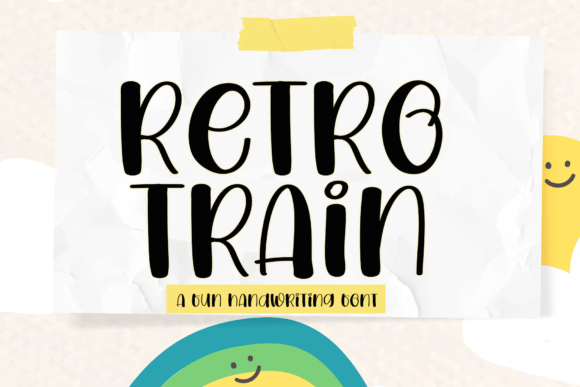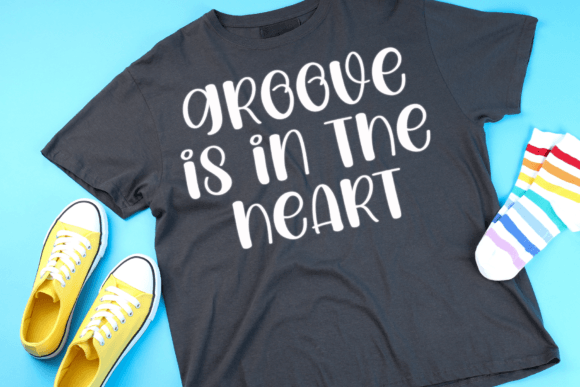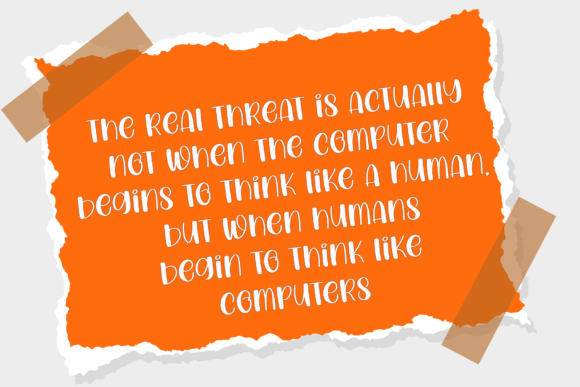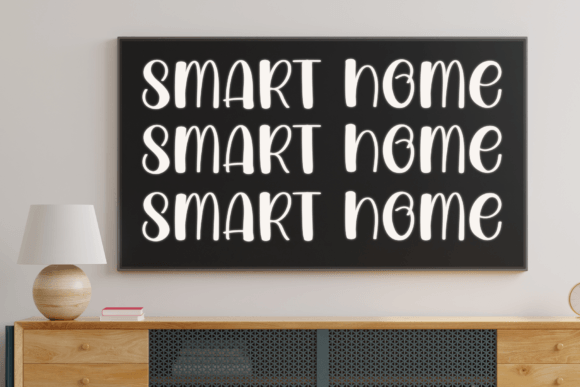
Retro Train Font
About the Retro Train Font
Experience the unique personality of Retro Train Font, a font designed for impact. Retro Train is a stylish handwritten display font with a contemporary atmosphere and impeccable form, inspired by timeless classic calligraphy. Balanced and varied, this font was designed to enhance the beauty of your projects.
Retro Train excels in headline applications, logos, and short text blocks on posters or packaging where its stylish, handcrafted quality adds a touch of vintage charm. It’s ideal for projects needing a retro yet modern feel, such as branding for coffee shops, boutiques, or craft breweries. Avoid using it for body text or lengthy paragraphs; its distinctive character is best showcased in concise, impactful messaging.
The font’s personality is confident and slightly playful, yet retains a sophisticated edge. Pairing it with a clean sans-serif like Open Sans for body copy provides a strong contrast and enhances readability. For a more vintage feel, consider pairing it with a classic serif like Garamond. A geometric sans-serif could also create a striking modern juxtaposition.
Overall, Retro Train’s balanced forms and contemporary feel lend themselves to projects requiring a unique, attention-grabbing visual element. It is not suitable for user interfaces or situations demanding high readability for extended text.
Retro Train Font Usage Examples
Retro Train Font Example